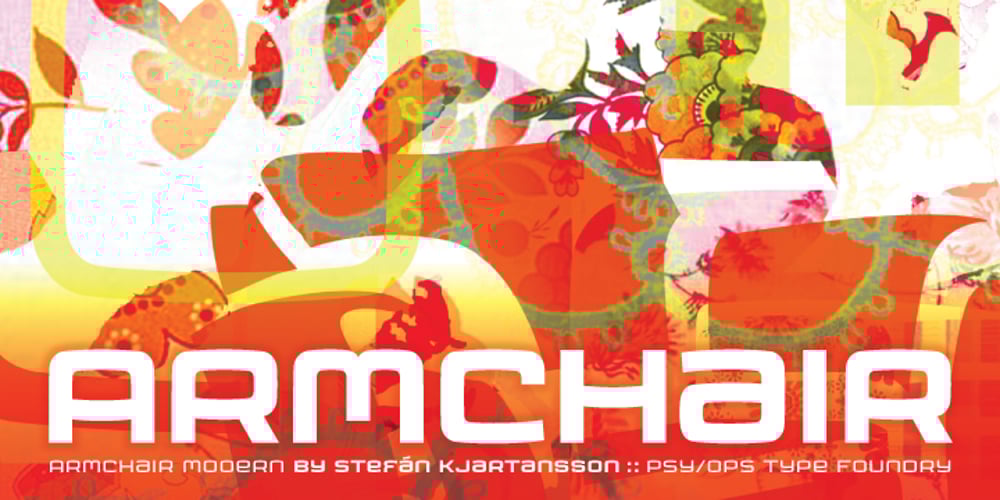
Armchair Modern
Armchair Modern font
Armchair Modern Font Family was designed by Stefan Kjartansson and published by PSY/OPS. Armchair Modern contains 5 styles and family package options. “Growing up in Iceland, I was exposed to Scandinavian modernism from an early age. My parents had Arne Jacobsen furniture around the house and I was always enticed by the fun shapes and colors….”—SK Armchair Modern is derived from the logo created for Armchair Media Group by Stefan Kjartansson. The design is unabashedly ultra-modern, reminiscent of work by Mark Newson and the aforementioned Jacobsen. Armchair Media is a consulting company, working with clients from the Web and interactive TV, so the super-elliptical letterforms are also intended to evoke a traditional TV screen or CRT display. The complete family of five weights was co-produced by PSY/OPS in 2001.